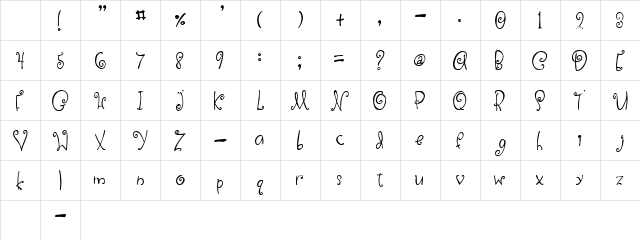
Complete 2Peas DW Curls and Swirls Regular glyph index. Displaying only characters natively supported by 2Peas DW Curls and Swirls Regular font.
2Peas DW Curls and Swirls is built around its visual character rather than neutral utility - its distinctive forms are designed to make an impression at display sizes.
Font Pairing: Pair with a clean neutral sans-serif for body copy to let 2Peas DW Curls and Swirls's character lead without overwhelming the composition.
Pro Tip: Use 2Peas DW Curls and Swirls exclusively at display sizes - it was designed to be seen, not read at length. Let a neutral companion handle body copy.